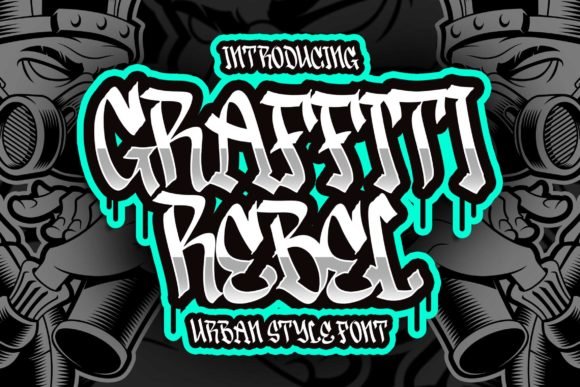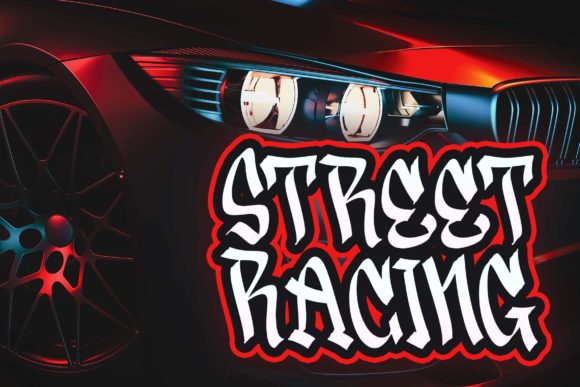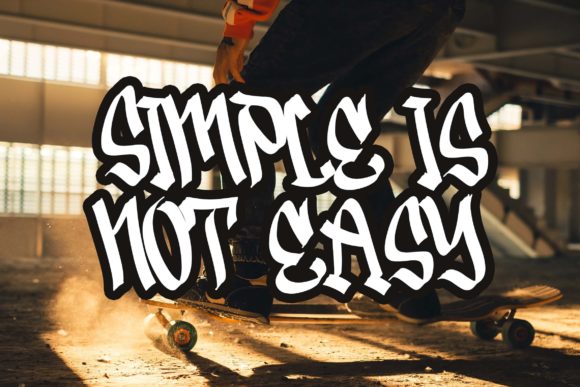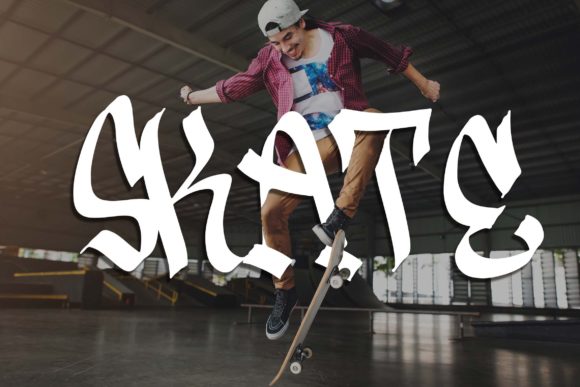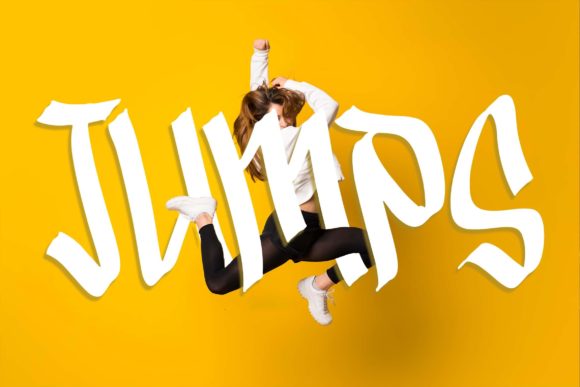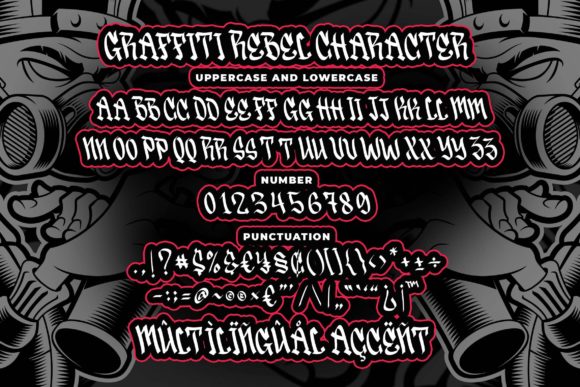
Unleash Your Urban Edge with Graffiti Rebel Font
You’ve got an idea, a spark of creativity that’s begging to be set free. You see it in your mind’s eye – a bold, eye-catching design that demands attention. And then, the moment of truth: you start designing, but something’s missing. That’s where Graffiti Rebel Font comes in – a font that’s as fearless as it is fashionable.
This urban styled display font is the perfect companion for designers who crave a touch of rebellion in their work. With Graffiti Rebel Font, you can add an assertive, in-your-face vibe to your designs, making them stand out from the crowd. Whether you’re creating a poster, a social media campaign, or a brand identity, this font is sure to make a statement.
Graffiti Rebel Font Key Features
- Unique Characteristics: Distinct graffiti-inspired design, bold lines, and vibrant colors
- Font Style: Sans-serif, graffiti-style font with a rebellious feel
- Character Set: Supports Latin, Cyrillic, and Greek alphabets, with a wide range of punctuation and symbols
Graffiti Rebel Font Review
As a designer, I was excited to try out the Graffiti Rebel Font. Here’s my honest review.
- Unique aesthetic: The font has a distinct, edgy look that’s perfect for punk rock or street art-inspired designs.
- Good for headlines: The font’s bold, blocky letters make it great for headlines and titles, especially for promotional materials or social media graphics.
- Playful vibe: Graffiti Rebel Font adds a fun, playful touch to any design, making it suitable for youth-oriented projects or creative campaigns.
- Difficult to read: The font’s bold, blocky letters can make it challenging to read, especially in smaller sizes or for long blocks of text.
- Limited legibility: Some letters, like ‘a’ and ‘o’, can be difficult to distinguish, which may lead to misreadings or confusion.
- Not suitable for body text: Due to its bold and playful nature, Graffiti Rebel Font is best used for headlines and titles rather than body text.
Graffiti Rebel Font is a great addition to any designer’s toolkit, but it’s essential to use it judiciously. Its unique aesthetic and playful vibe make it perfect for certain types of projects, but its limitations in terms of readability and legibility mean it’s not suitable for all designs. Use it sparingly and effectively, and you’ll be rewarded with eye-catching, memorable designs.
The Graffiti Rebel Font is perfect for:
Music festival posters and flyers.
Social media graphics and ads.
Streetwear and fashion brand designs.
Artistic and creative projects that require a bold, edgy look.